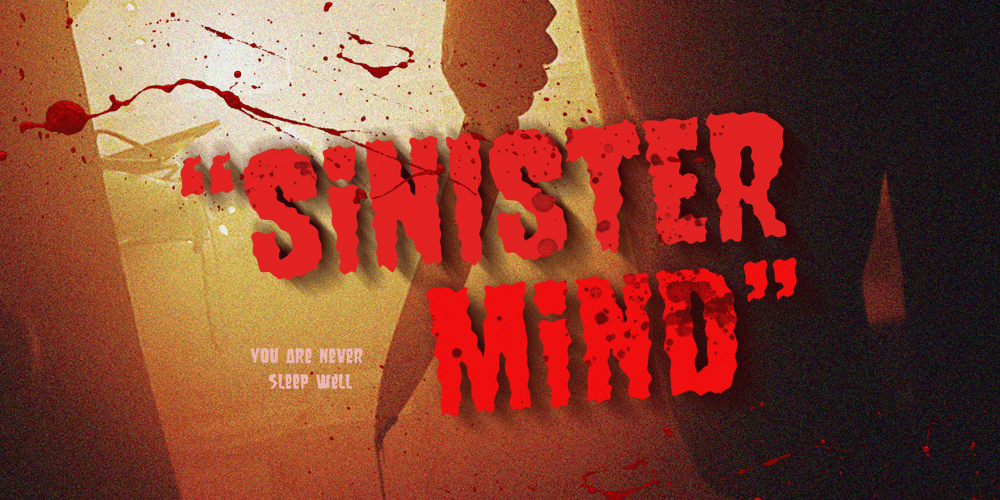
Sinister Mind Font Family was designed by Hendry Juanda and published by Letterhend. Sinister Mind contains 1 styles and family package options. Hollow House is an eye-catching typeface with a great looks in horror / creepy font. This type of font perfectly made to be applied especially in movies which is need a standout font, and the other simple forms such as invitations, labels, logos, magazines, books, greeting, packaging, novels, labels or any type of advertising purpose.Features : numbers and punctuation multilingual alternates ligatures PUA encoded We highly recommend using a program that supports OpenType features and Glyphs panels like many of Adobe apps and Corel Draw, so you can see and access all Glyph variations. How to access opentype feature : letterhend.com/tutorials/using-opentype-feature-in-any-software/